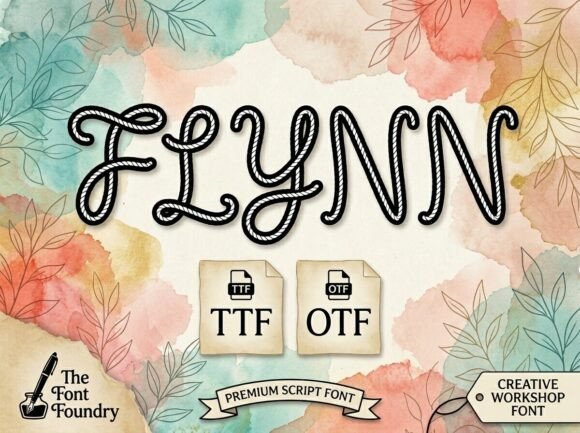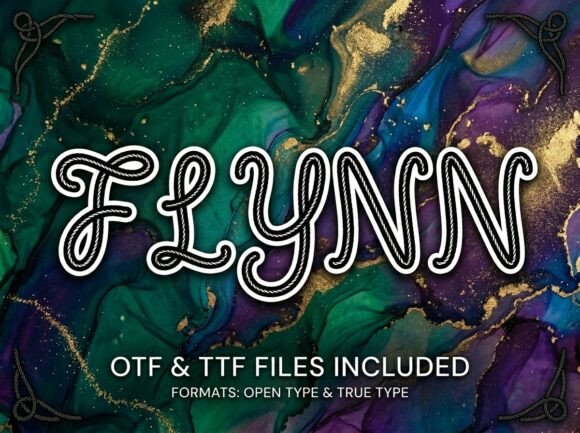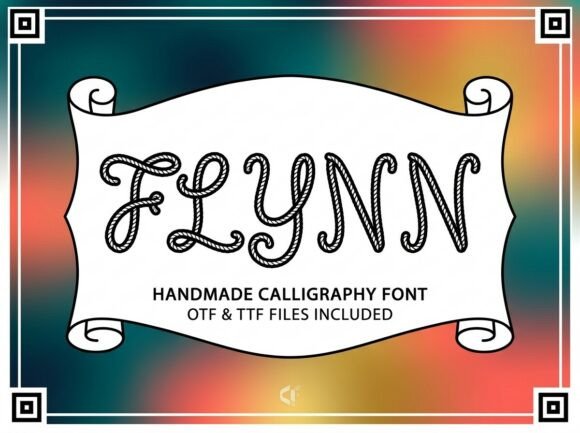
Tie Up Your Designs with the Ultimate Nautical Typeface
Have you ever stared out at the vast ocean, feeling the salty breeze in your hair and the thrill of adventure in your heart? For many designers, that’s the moment when creativity strikes, and the perfect font to capture that feeling is just out of reach. Until now.
Introducing Flynn Font, a premium display script that embodies the “maritime-and-adventurous” soul we all crave. With its elegant, monolinear cursive letterforms, meticulously rendered to resemble twisted nautical rope, Flynn is the ultimate choice for designers seeking to add a touch of coastal charm to their projects.
Whether you’re working on a logo for an independent seafood restaurant or a yacht club identity, Flynn Font is the perfect addition to your design toolkit. Its bold black outlines and rhythmic, winding silhouette make it a valuable asset for any designer looking to elevate their nautical-themed projects and make a lasting impression.
Flynn Font Key Features
- Unique Characteristics: Flynn Font features a unique blend of modern and vintage elements, with clean lines, geometric shapes, and subtle texture, giving it a distinctive and stylish look.
- Font Style: Flynn Font is available in regular and bold styles, allowing designers to choose the perfect weight to suit their design needs.
- Language Support: Flynn Font supports a wide range of languages, including Latin, Cyrillic, and Greek, making it a versatile choice for global design projects.
- Customization Options: Flynn Font offers advanced customization options, including ligatures, swashes, and alternates, allowing designers to add a personal touch to their designs.
Designer Review: Flynn Font
Overall, I think Flynn Font is a solid addition to any typography collection. ✨ Its unique blend of modern and vintage elements gives it a distinctive look that’s perfect for designs that need a bit of flair.
Here are some of the things that I think work well:
- ✨ Uniqueness: Flynn Font has a distinct character that sets it apart from more generic fonts.
- ✨ Versatility: It’s suitable for a wide range of designs, from logos and headings to body text.
- ✨ Legibility: Despite its vintage look, Flynn Font is easy to read, even at smaller sizes.
That being said, there are some limitations to consider:
- ⚠️ Limited character set: Flynn Font is only available in a limited character set, which may not be suitable for designs that require a wide range of special characters.
- ⚠️ Not suitable for small sizes: While Flynn Font is legible at larger sizes, it can become difficult to read at very small sizes.
Overall, I’d recommend Flynn Font for designers who want to add a bit of personality to their designs. Just be aware of its limitations and use it judiciously.
Getting the Most Out of Flynn Font
To get the most out of Flynn Font, use it in creative projects such as invitations, posters, and social media graphics. Flynn Font is perfect for adding a touch of elegance and sophistication to your designs. Experiment with different font sizes, colors, and styles to create unique and eye-catching designs.
Alternatives to Flynn Font
Montserrat is a sans-serif font designed by Julieta Ulanovsky. It’s a geometric sans-serif typeface that works well for titles, headings, and body text. Use Montserrat when you need a clean, modern look with a strong emphasis on legibility.
Compared to Flynn Font, Montserrat has a more geometric feel and a slightly more aggressive aesthetic. While Flynn Font has a softer, more rounded appearance, Montserrat is ideal for digital interfaces and modern branding.